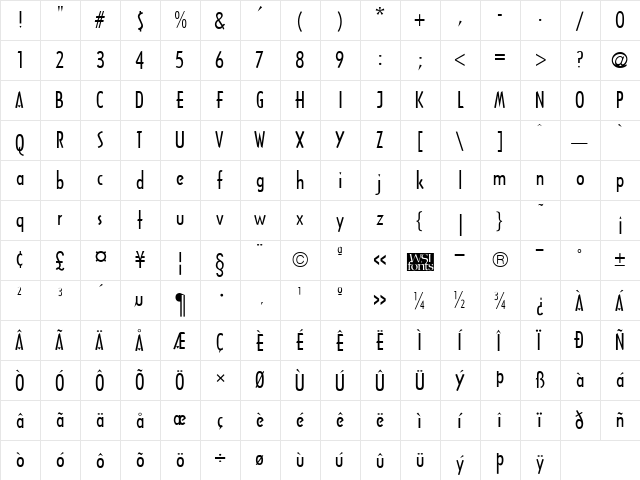
Arcane Regular Font Preview
Arcane Regular
Design Context for Arcane Typeface
Arcane takes a measured approach to typography — its balanced proportions and neutral character make it a reliable workhorse for both digital and print work.